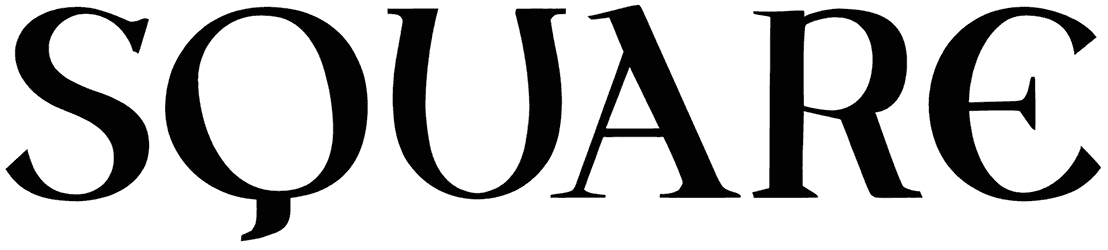
Square Font
Square is an all-caps Celtic font that comes with curved letters and looks incredibly suitable for all of your creative ideas, such as magazines, gift cards, diplomas, branding projects, or business cards.
Considering its clean shapes and accurate kerning, it has the real potential to add a sense of professionalism, delicacy, precision, or majesty to all of your content, even without the numbers. Never forget that you can save lots of time and energy by visiting the RB font collection.